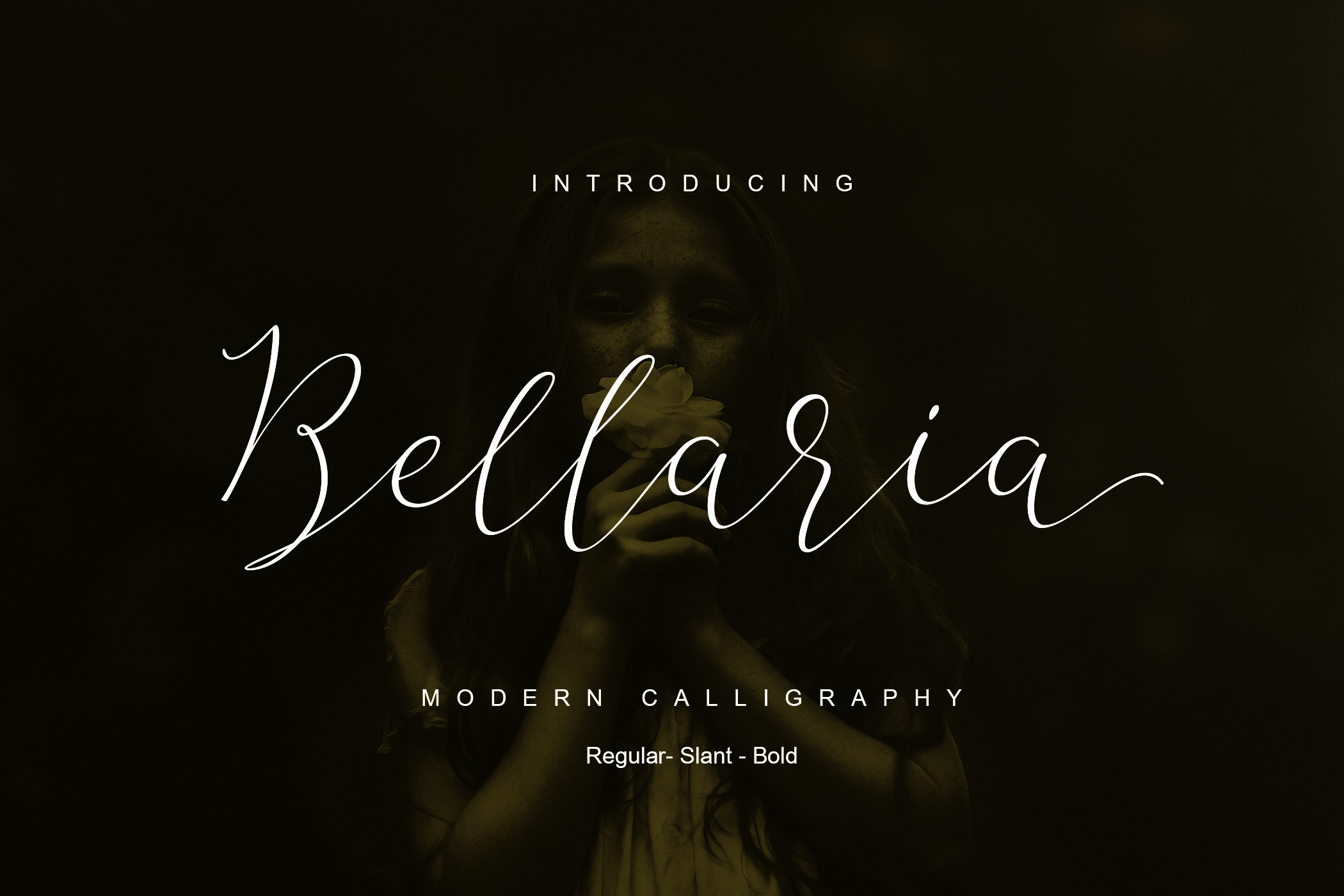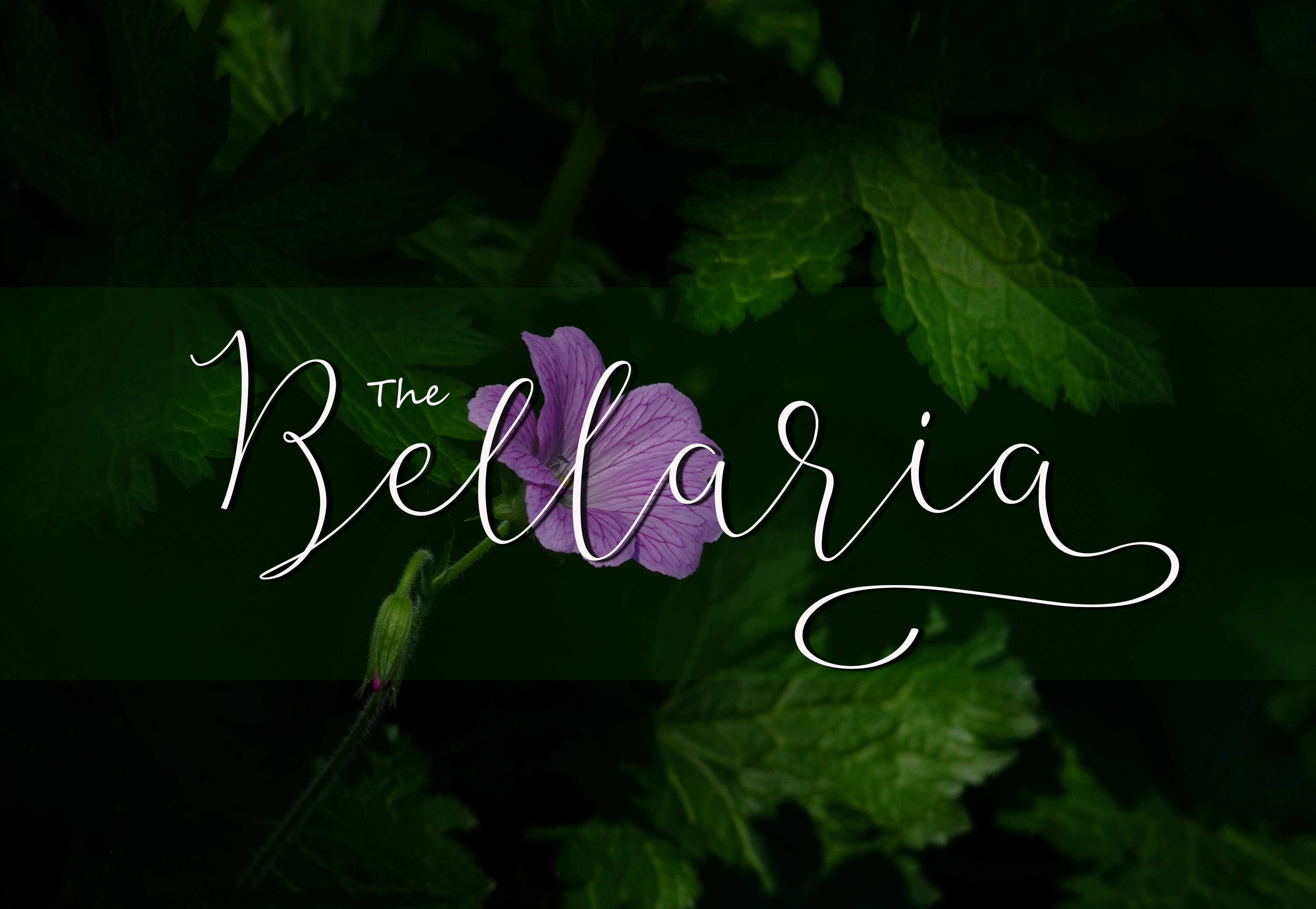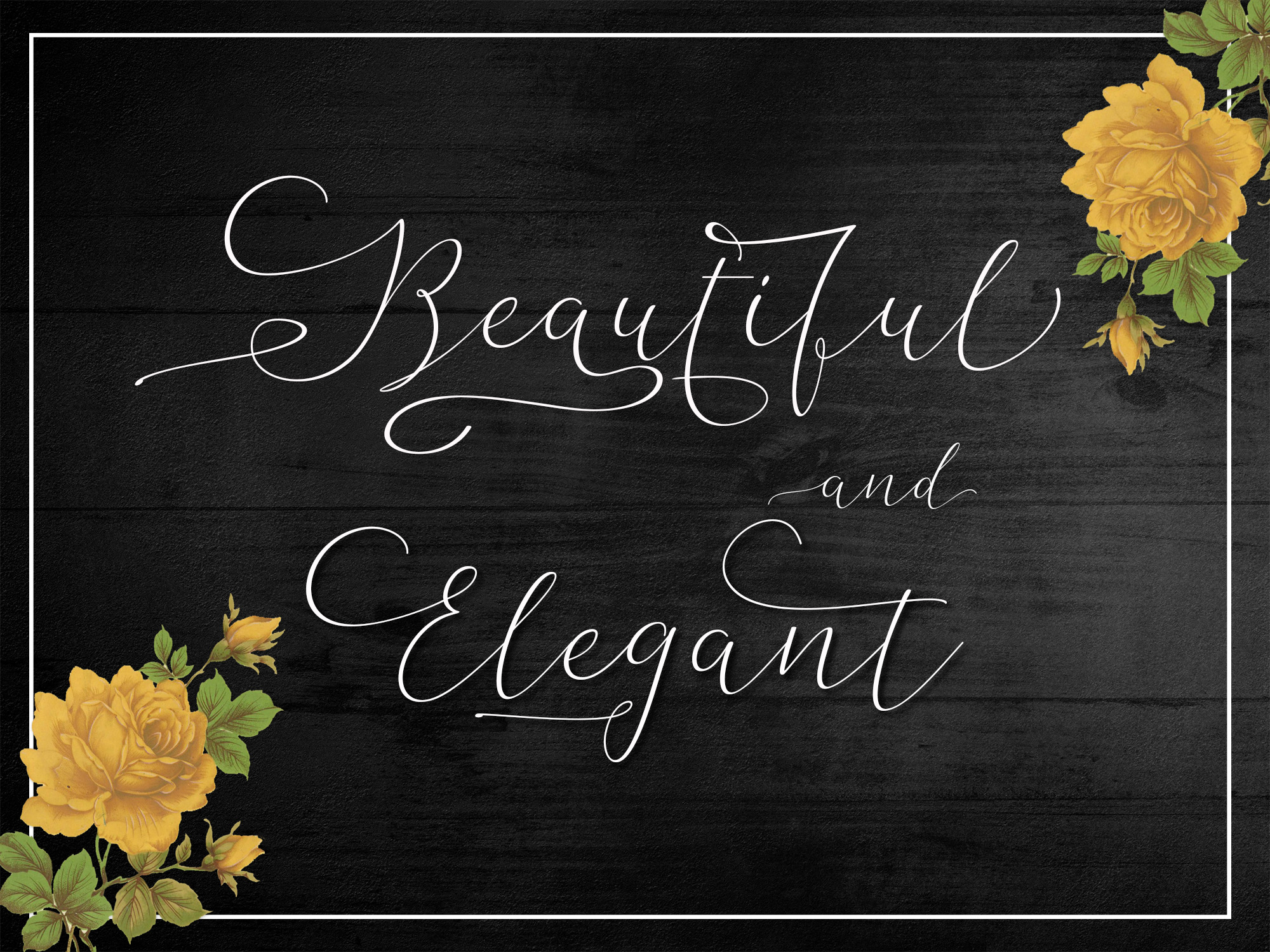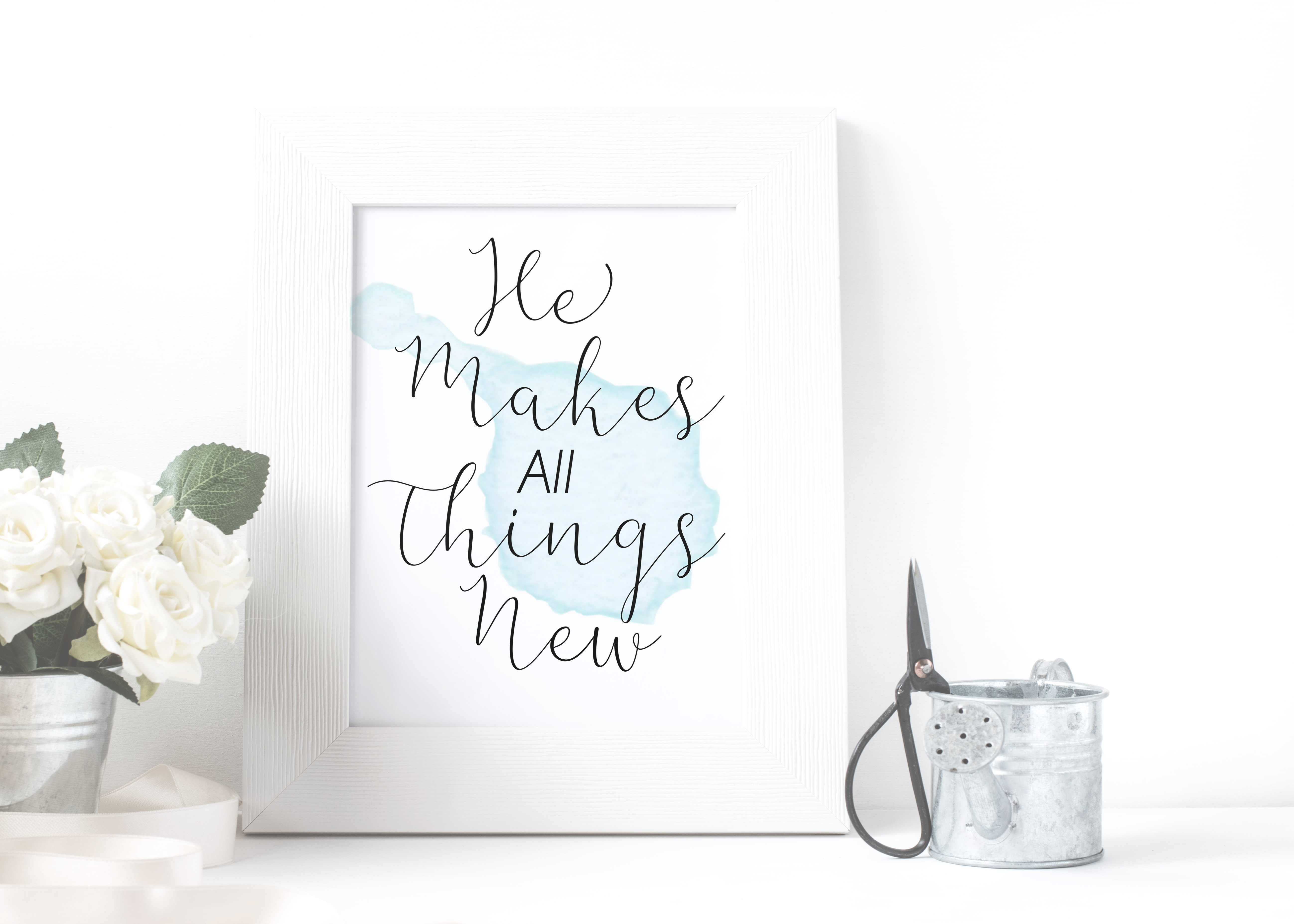
The Art of Handwritten Elegance: Introducing the Bellaria Script Font
There’s something magical about the first time you put pen to paper and let your creativity flow. As you start to write, the words begin to dance across the page, and your unique personality shines through. This feeling of freedom and self-expression is exactly what the Bellaria Script Font embodies.
Designed to evoke the classic elegance of handwritten calligraphy, the Bellaria Script Font is a versatile and stylish typeface that’s perfect for a wide range of creative projects. Whether you’re a designer, artist, or writer, this beautiful font will add a touch of sophistication and charm to your work. With two variations – Bellaria Regular and Bellaria Slant – you’ll have the flexibility to experiment with different styles and find the perfect fit for your project.
The Bellaria Script Font is a valuable addition to any designer’s toolkit, offering a unique and timeless look that’s sure to impress. Its flowing baseline and elegant design make it perfect for headings, titles, and even body text. So why not give it a try and see how the Bellaria Script Font can elevate your creative projects to the next level?
Bellaria Script Font Key Features
- Font Family: Bellaria Script Font is a beautiful script font that is perfect for creating elegant and sophisticated designs.
- Unique Characteristics: Bellaria Script Font features a unique blend of elegance and sophistication, with subtle flourishes and connections between letters, making it perfect for creating eye-catching designs.
Bellaria Script Font Review
Bellaria Script is a beautiful, elegant script font that shines in applications where a touch of sophistication is needed. ✨ Its flowing lines and subtle flair make it perfect for designing invitations, greeting cards, and other paper crafts. The font’s versatility is also evident in its ability to pair well with sans-serif fonts, creating a harmonious balance between elegance and simplicity.
- Highly legible, even at smaller font sizes
- Includes a wide range of characters, including accents and ligatures
However, there are some limitations to consider: ⚠️ The font’s script nature can make it difficult to read at very small sizes, and some characters may appear slightly irregular or uneven. Additionally, the font’s design may not be suitable for applications where a more modern or edgy look is desired.
Overall, I find Bellaria Script to be a solid choice for designers seeking a elegant and refined font. While it may not be perfect for every project, its beauty and versatility make it a valuable addition to any font library.
Tips for Getting the Most Out of Bellaria Script
Use the font in conjunction with a bold or sans-serif font to create a striking contrast. Experiment with different font sizes and styles to achieve the desired effect. Consider combining the font with images or graphics to add visual interest.
Bellaria Script is perfect for:
- Quotes and inspirational graphics